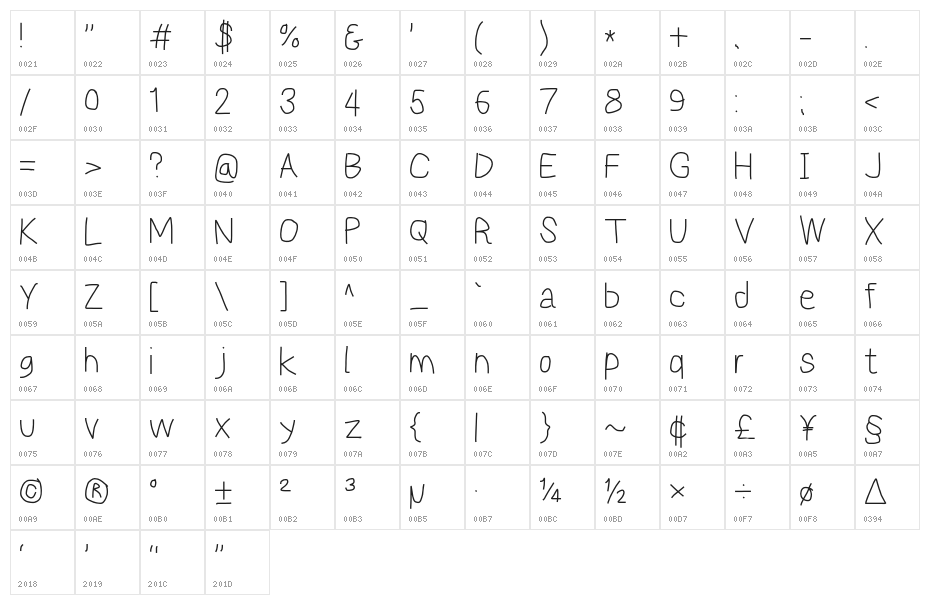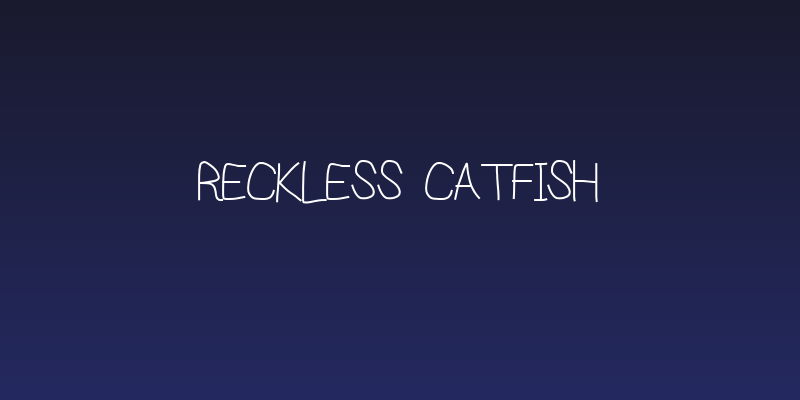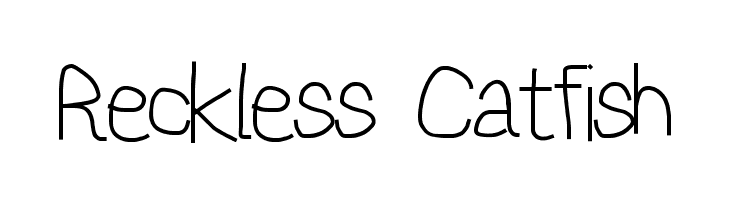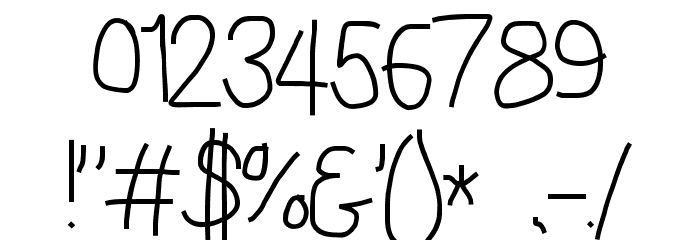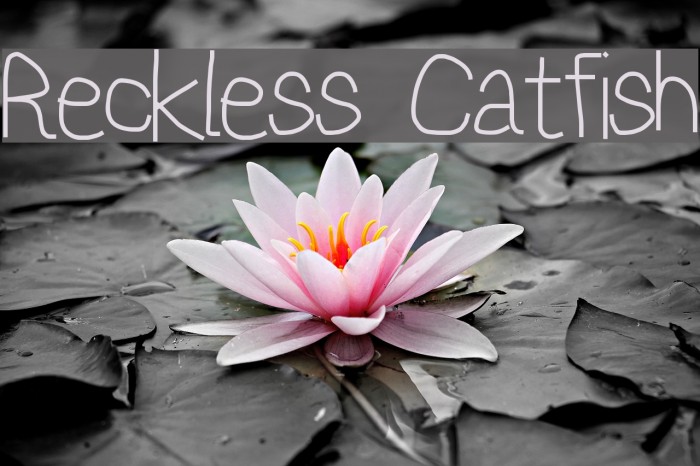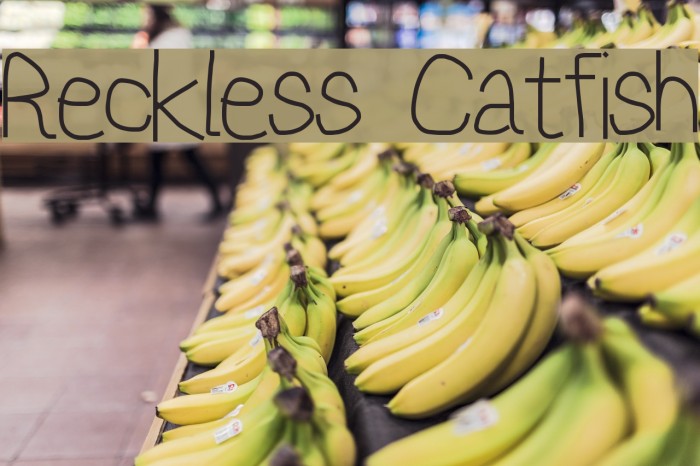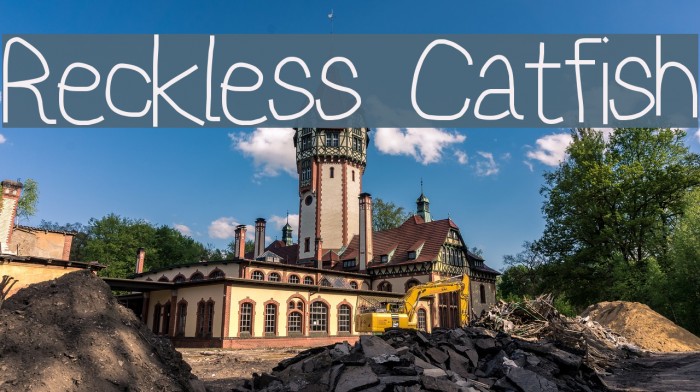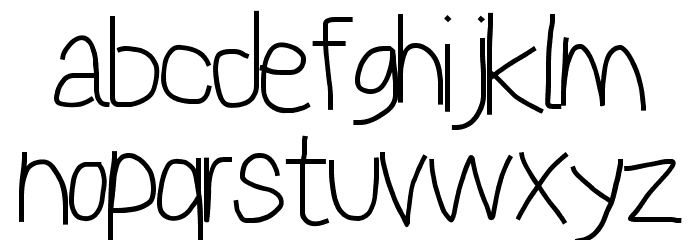
Reckless Catfish Font
Reckless Catfish Description
This font features a playful and whimsical design with a handwritten style. The characters are slightly irregular, giving it a casual and informal appearance. The strokes are consistent in thickness, providing a uniform look across all characters. The uppercase letters are tall and narrow, while the lowercase letters maintain a similar height, creating a cohesive visual flow. Numbers and special characters follow the same playful style, making it suitable for creative projects. The overall design is approachable and friendly, ideal for conveying a sense of fun and creativity.